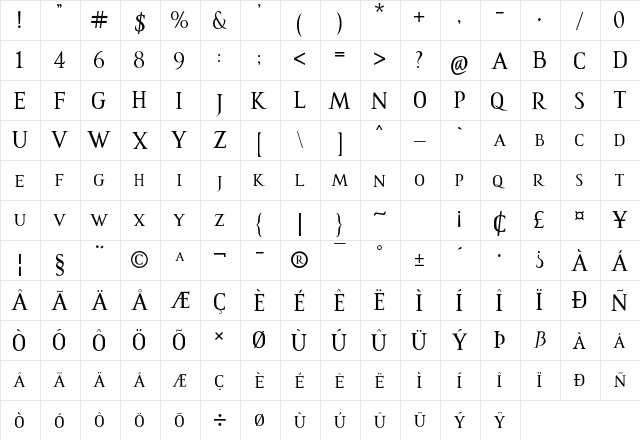
ROMANUS Regular
| Designer | 頺amjump 2020 |
Design Context for ROMANUS Typeface
ROMANUS is a composed and adaptable typeface that performs quietly and consistently across a wide range of design contexts.